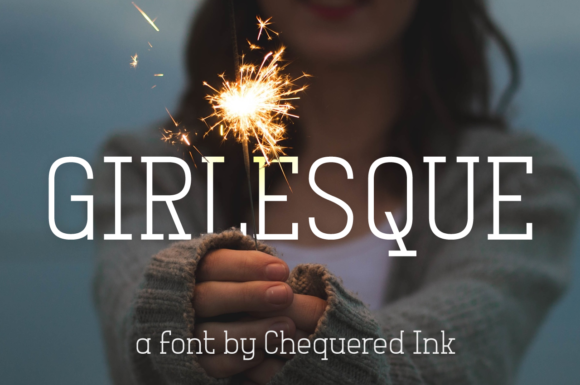
Dive into the realm of elegance and sophistication with Girlesque Font, a serif masterpiece crafted by the skilled hands at Chequered Ink. This font beckons you to embrace a world where words dance with grace and charm, leaving an indelible mark on the hearts of readers.
With its clean, thin lines, reminiscent of sunlight filtering through a crystal prism, Girlesque Font weaves a tapestry of visual delight. Each character stands as a testament to precision and artistry, inviting you to craft designs that exude timeless beauty.
Step into a realm where your words leap off the page, commanding attention with their poise and refinement. Whether you're creating invitations for a special occasion, crafting marketing materials that leave a lasting impression, or simply adding a touch of elegance to your personal projects, Girlesque Font is your trusted companion.
Elevate your designs to new heights with Girlesque Font. Let its delicate strokes guide you as you create masterpieces that captivate and inspire. This font is not merely a collection of letters; it's an expression of your unique style and taste, a reflection of your passion for excellence.